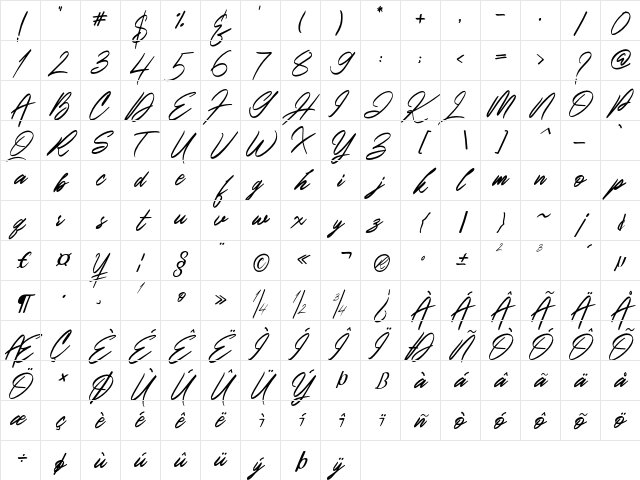
Complete Italian Horskey Demo Regular glyph index. Displaying only characters natively supported by Italian Horskey Demo Regular font.
Italian Horskey Demo is a composed and adaptable typeface that performs quietly and consistently across a wide range of design contexts.
Who designed the Italian Horskey Demo Regular font?
This font was published by Mindtype Co.. Check the technical specs section for copyright and designer details.